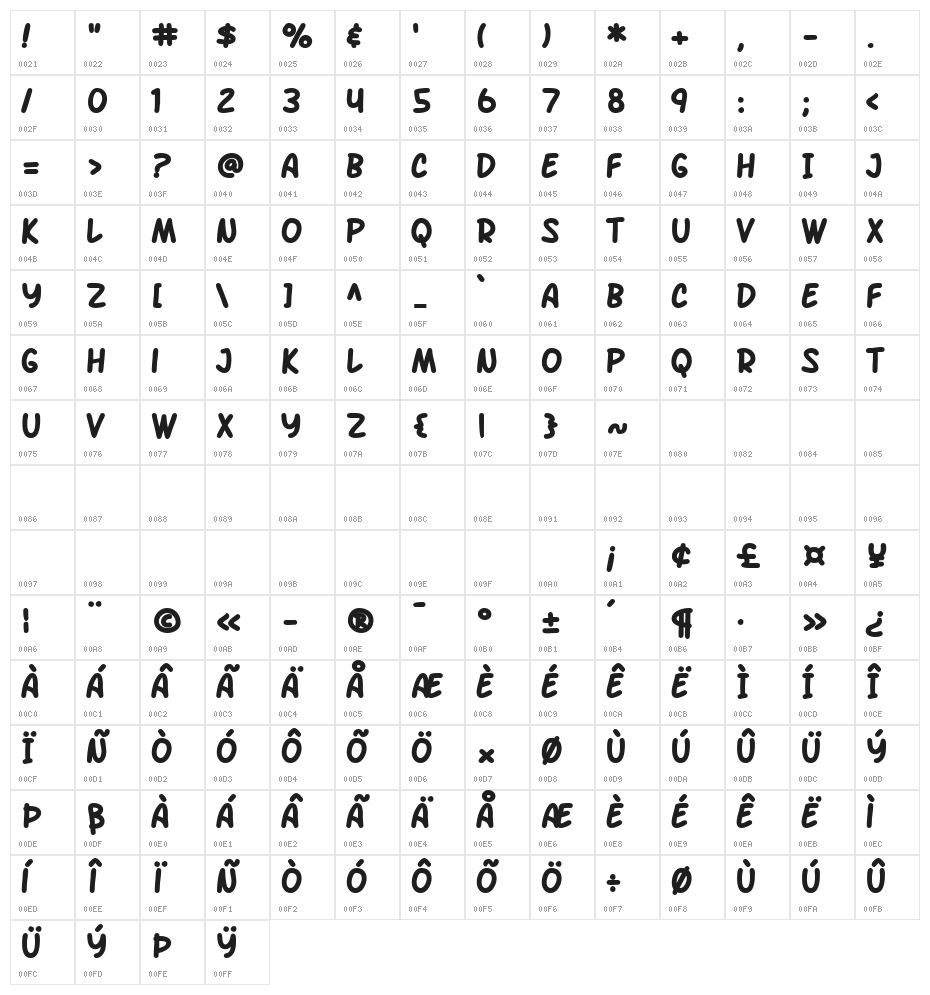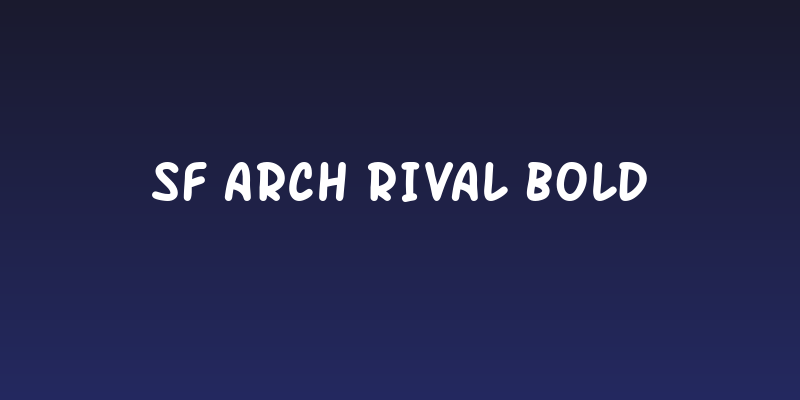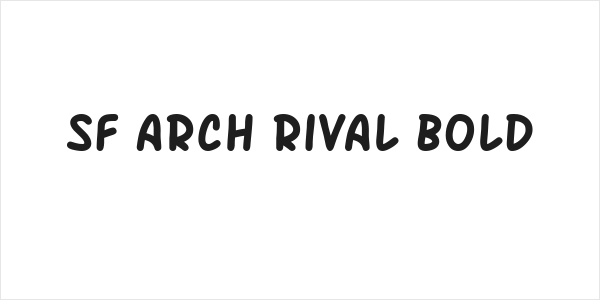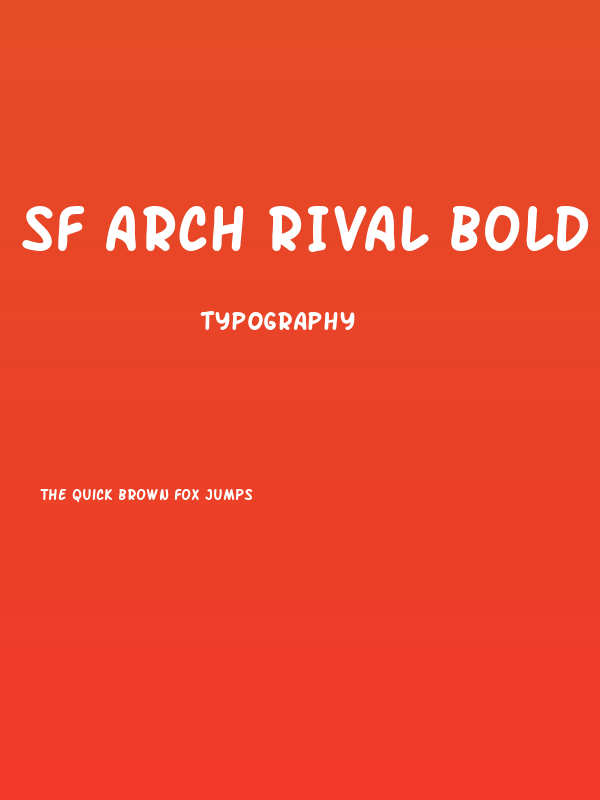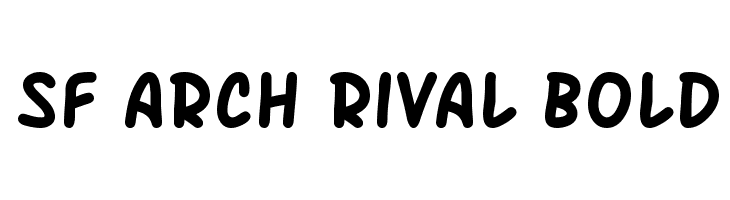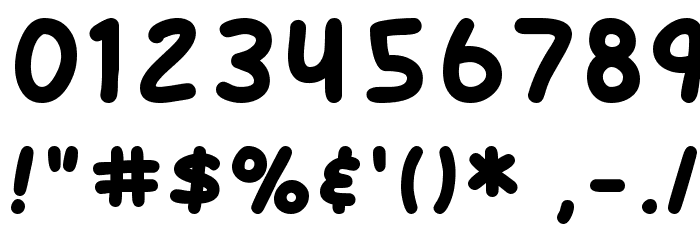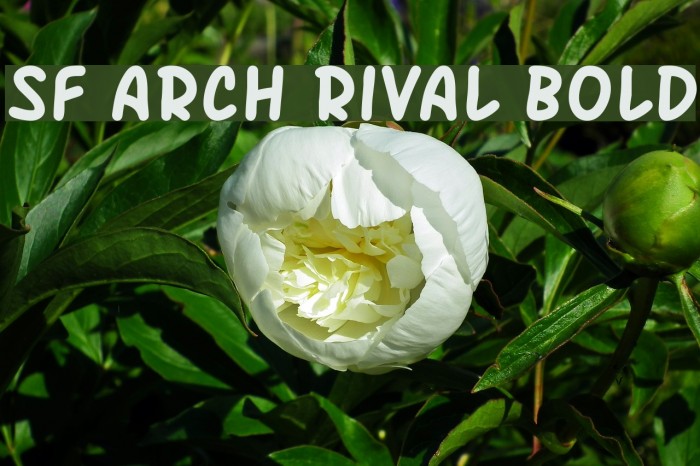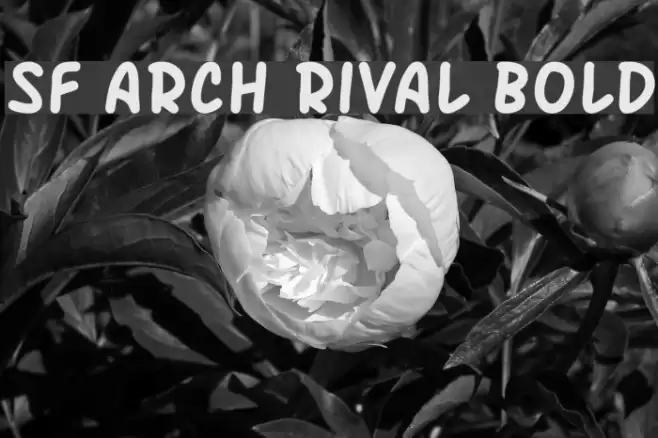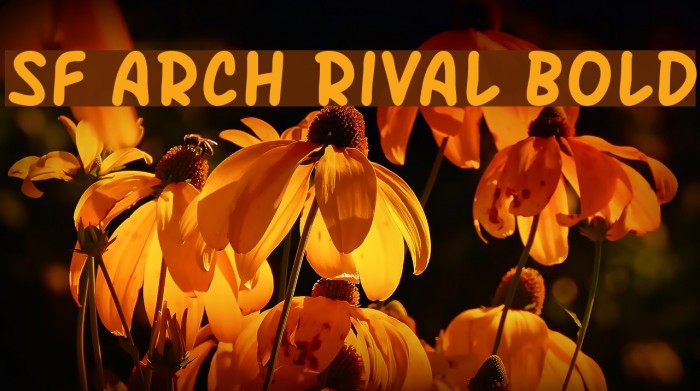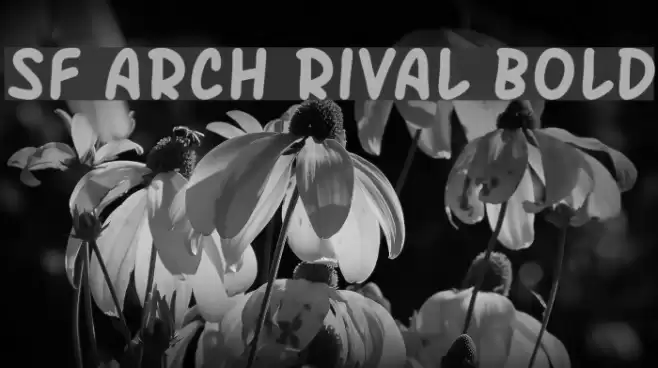
SF Arch Rival Bold Font
SF Arch Rival Bold Description
This font features a bold and playful style with rounded edges and a slightly irregular baseline, giving it a casual and friendly appearance. The characters are thick and robust, making them highly legible and impactful. The uppercase and lowercase letters maintain a consistent style, with a slight slant that adds to the dynamic feel of the font. The numbers and special characters are designed to match the overall playful aesthetic, ensuring a cohesive look across all text elements. This font is well-suited for projects that require a fun and approachable vibe.
| Overall Style | Playful |
| Proposed Projects | Ideal for children's books, playful branding, casual invitations, and fun social media graphics. |